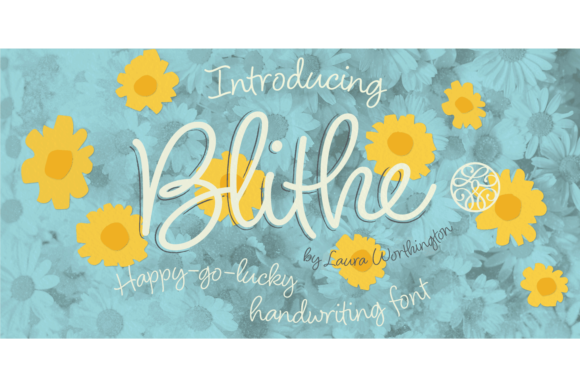
Blithe Font
About Blithe Font
Bouncy, effortless looking handwriting can put us at ease or make us smile. Blithe captures the casual flair of a felt-tip pen with clean monoline strokes and retains the distinctive quirks of real handwriting and imperfectly varied letterforms. Blithe includes a wide array of 148 ligatures and 47 alternates to create even more convincing connections; all in the service of authenticity. Blithe is ready to welcome readers of cute Instagram posts, cupcake menus, baby clothing – anywhere that calls for gentle charm.